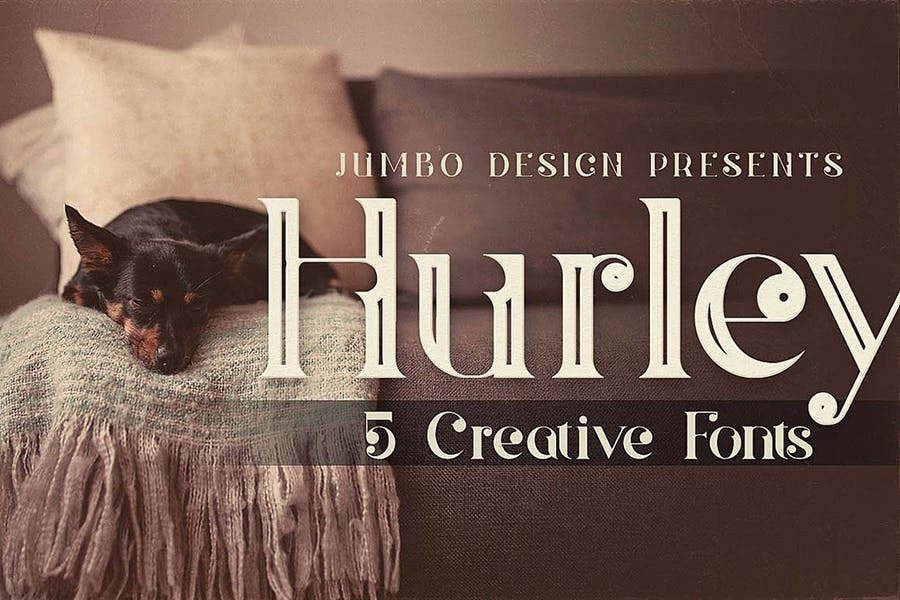
Hurley - Vintage Style Font
Hurley - Vintage Style Font is perfect for surf shop branding, coastal restaurant signage, beach resort marketing, vintage boardwalk attractions, nautical merchandise labels, retro travel posters, classic motorcycle graphics, seaside café menus, vintage sportswear designs, and authentic coastal lifestyle branding.
Hurley - Vintage Style Font creates excitement because it perfectly captures the free-spirited essence of vintage surf culture and coastal living with its relaxed letterforms and authentic beach-worn aesthetic. The font's weathered charm and laid-back character instantly evoke memories of endless summers and carefree coastal adventures, making any brand appear genuine and connected to authentic surf heritage. Its carefully crafted vintage details and sun-bleached appearance create an immediate emotional connection with audiences who appreciate the timeless appeal of coastal lifestyle and the authentic spirit of classic surf culture.
The Hurley - Vintage Style Font family includes multiple weights and styles: Regular, Bold, Light, Medium, Italic, Condensed, Extended, Distressed, Weathered, and Script versions. Each variant preserves the font's authentic surf heritage character while offering different levels of vintage wear and coastal styling suitable for various beach and lifestyle applications.